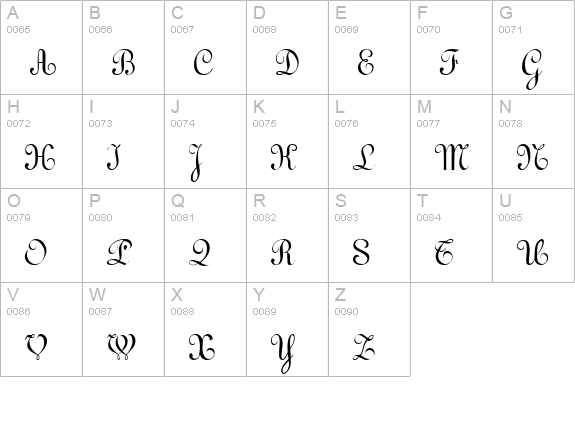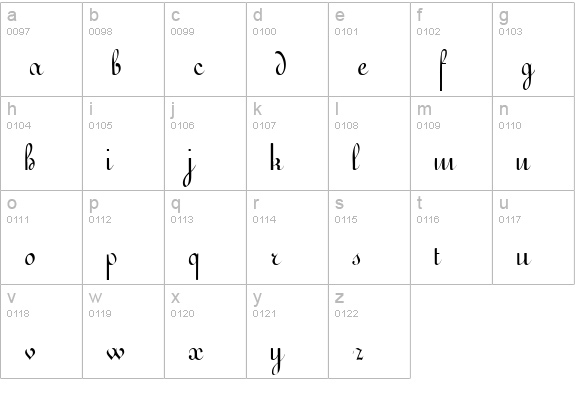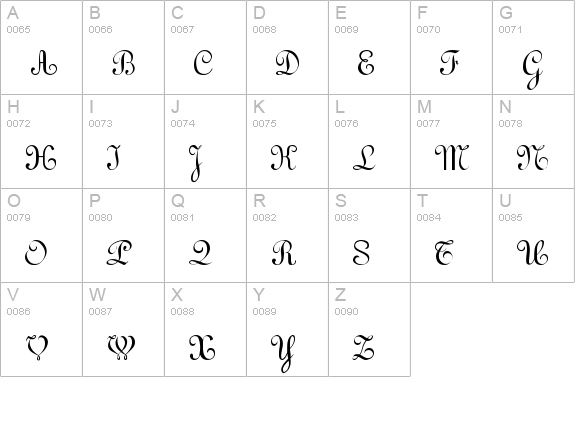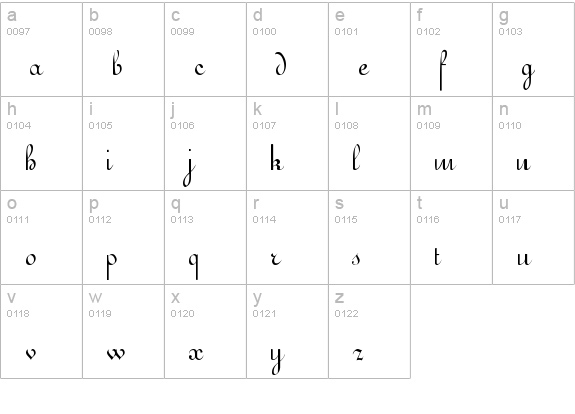
Victorian Normal Font Details
Victorian Normal is the standard, neutral variant in the Victorian typeface family \xE2\x80\x94 well suited to general body text, paragraphs, and standard typographic work.
Victorian Normal font is a stunning typographic masterpiece that captures the essence of the Victorian era. With its delicate lines and intricate detailing, this font brings a touch of elegance and nostalgia to any design project. The Victorian Normal font is meticulously crafted to pay homage to the ornate lettering styles prevalent during the 19th century. Its timeless appeal makes it an excellent choice for invitations, wedding stationery, and vintage-inspired branding. Designed with utmost precision, Victorian Normal font maintains a perfect balance between its bold strokes and delicate curves. Each character is meticulously crafted to exude sophistication and grace, making it a truly remarkable typeface. One of the most remarkable aspects of Victorian Normal font is that it is freely available to download at FontsMarket.com. This means that designers and enthusiasts alike can access this exquisite font without any cost. Whether you're a professional graphic designer or a hobbyist looking to add a touch of Victorian charm to your personal projects, Victorian Normal font is the perfect choice. The versatility of Victorian Normal font is astounding. It seamlessly adapts to various design contexts, effortlessly enhancing vintage-themed posters, signage, and logo designs. Its timeless aesthetic has the power to transport viewers back in time, evoking a sense of nostalgia and elegance. With its wide range of characters and glyphs, Victorian Normal font offers endless possibilities for creative expression. Its extensive language support allows designers to effortlessly incorporate this font into projects of any nature or scale. Whether you're designing a classic book cover, a restaurant menu, or a historical website, Victorian Normal font will undoubtedly make a lasting impact. In conclusion, Victorian Normal font is a stunning typeface that effortlessly captures the essence of the Victorian era. Its intricate detailing, delicate lines, and timeless appeal make it a must-have for any designer or enthusiast. Best of all, it is freely available to download at FontsMarket.com, allowing anyone to access its beauty and charm. Add a touch of elegance and nostalgia to your designs with Victorian Normal font.